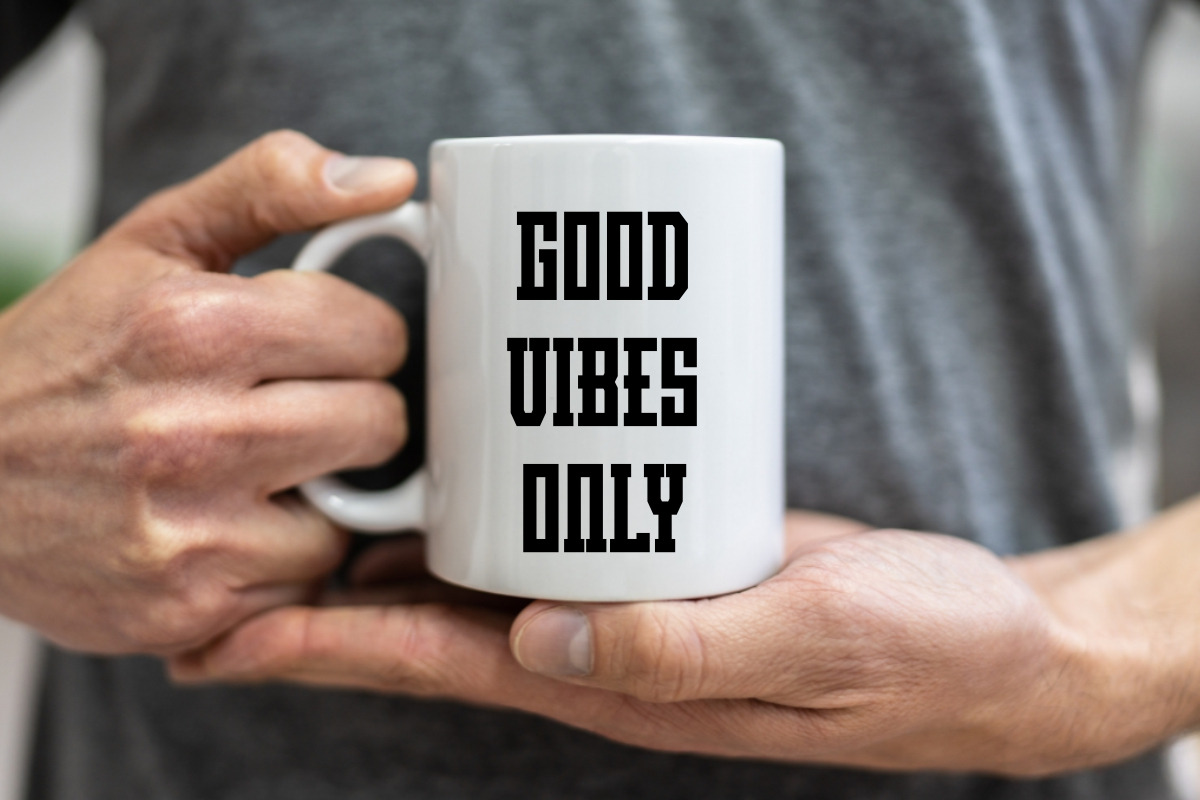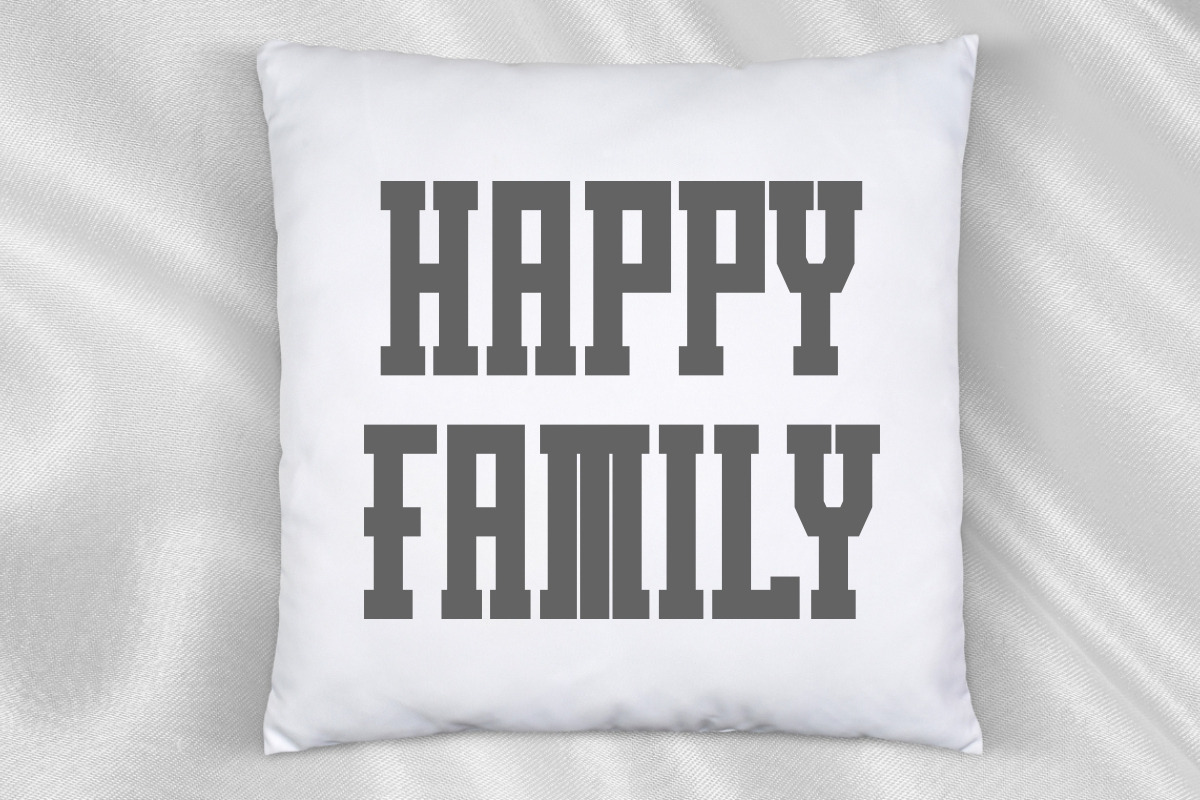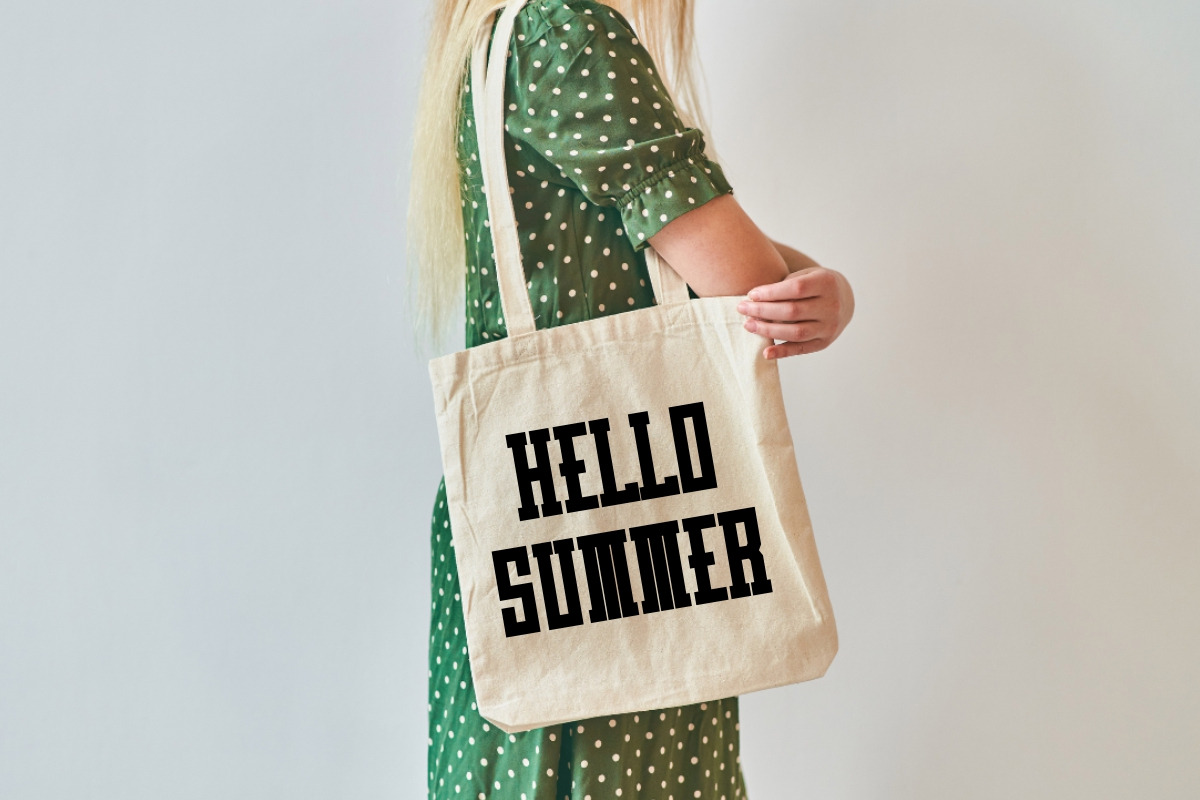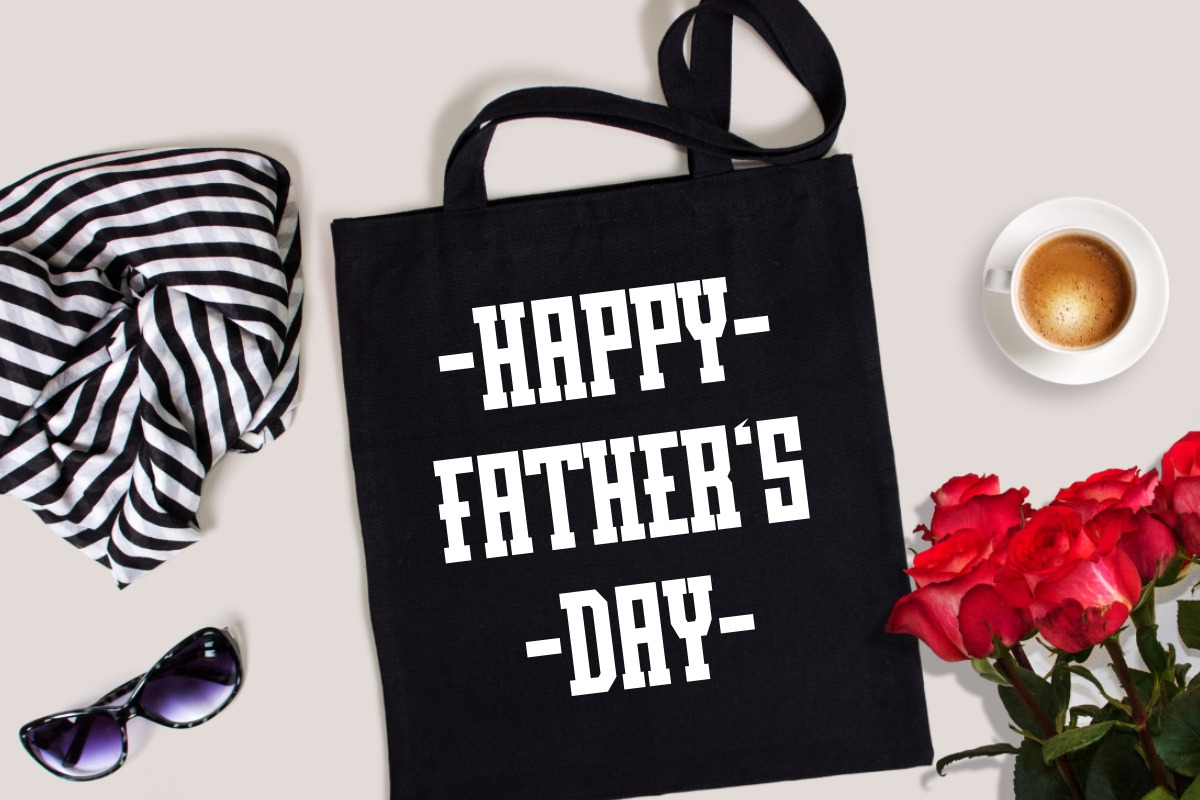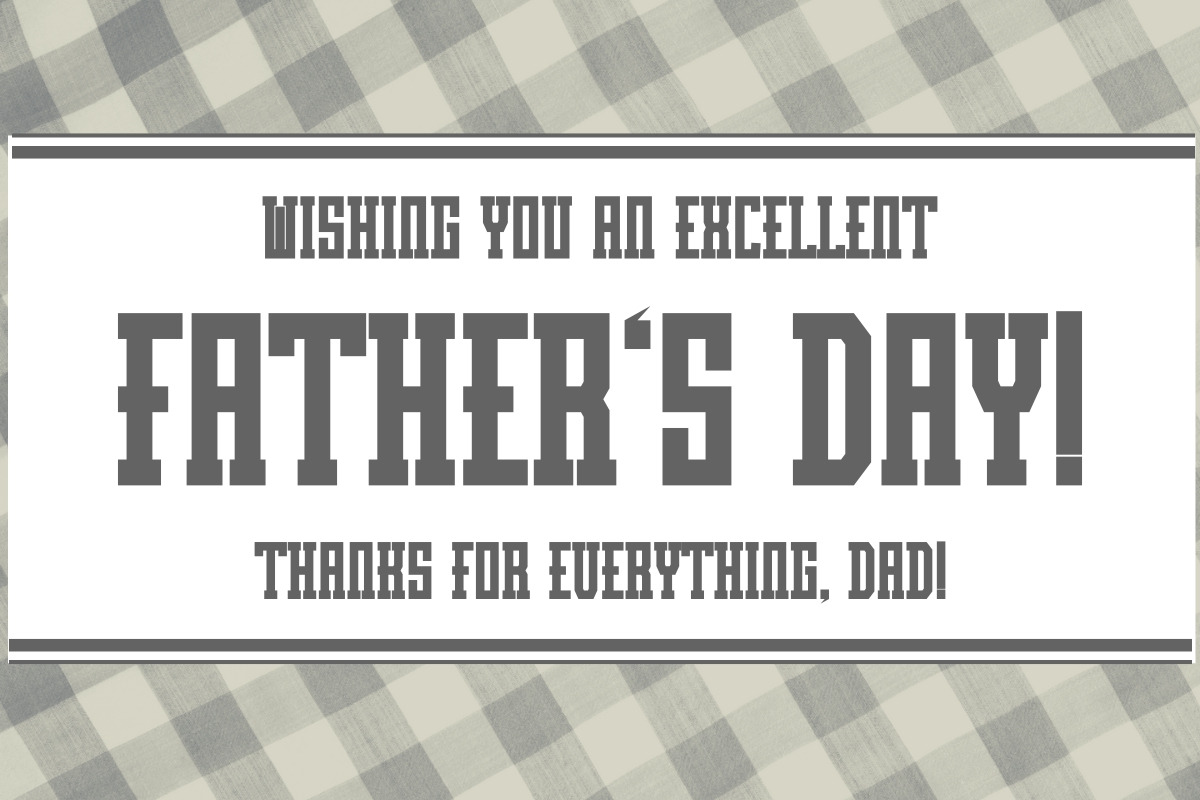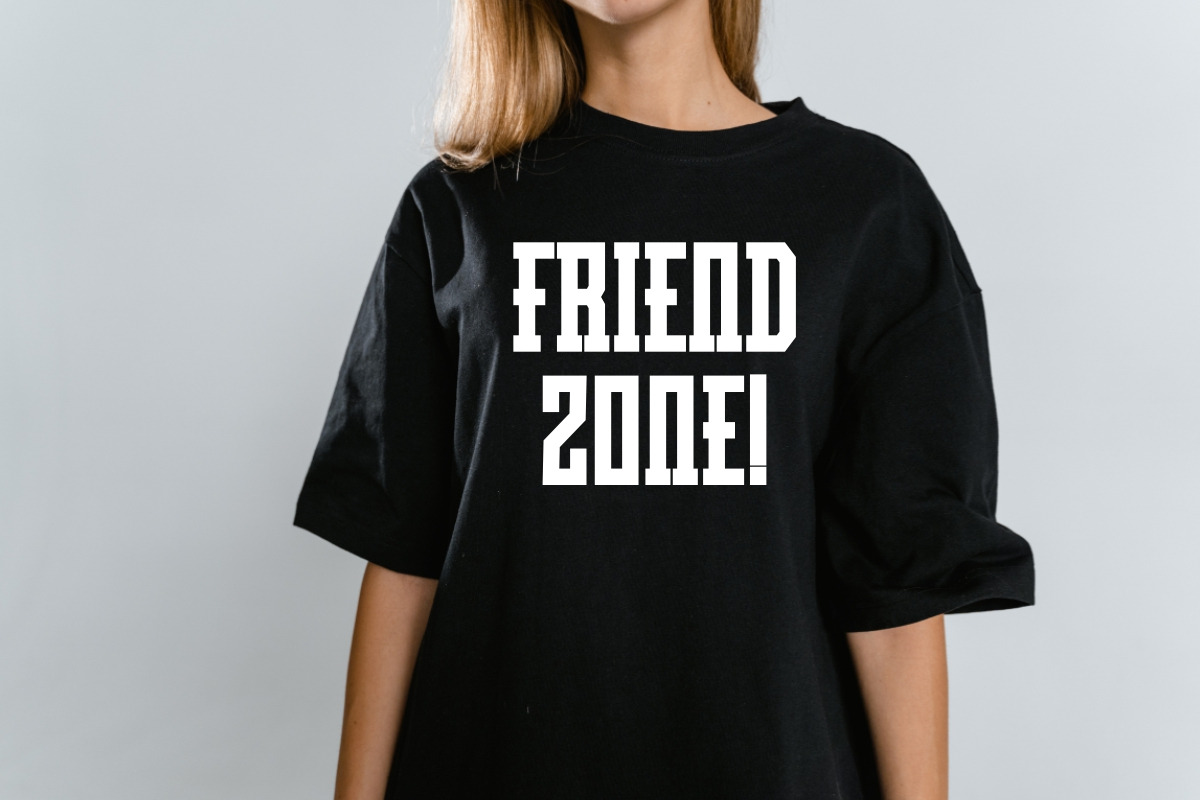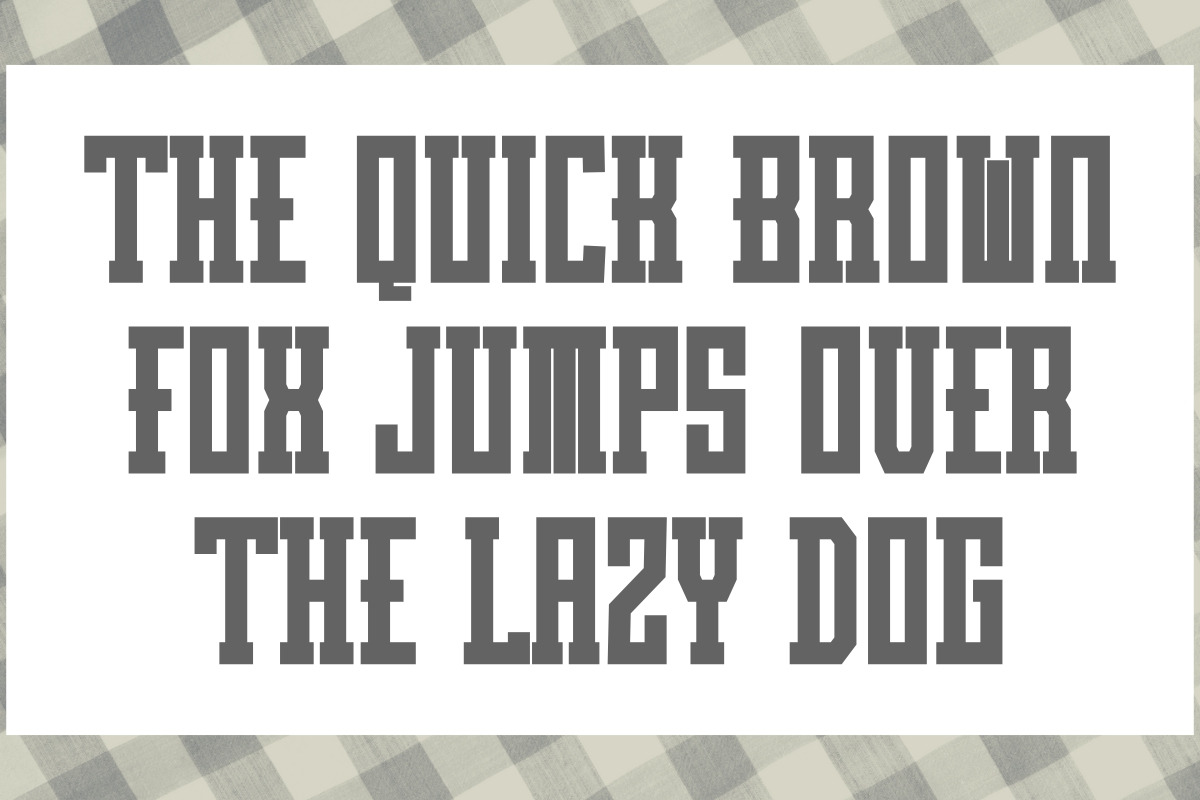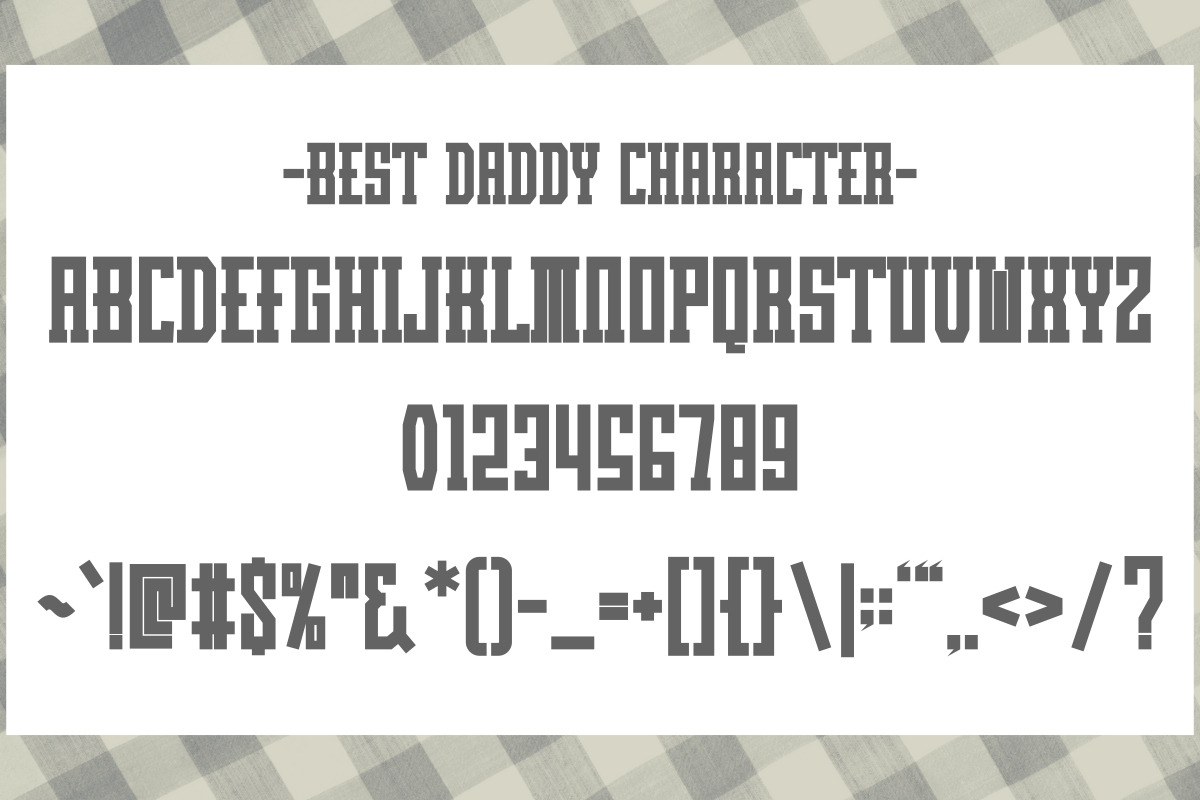
Best Daddy - Condensed Slab Serif
Best Daddy is a condensed and clean slab serif font that bring a bold and modern touch to your creative projects. With its sleek and strong appearance, this font ensures your designs are both impactful and stylish, making it an excellent choice for a variety of applications. Perfect for quotes, posters, backgrounds, t-shirts, mugs, tote bags, pillows, jerseys and wall art.